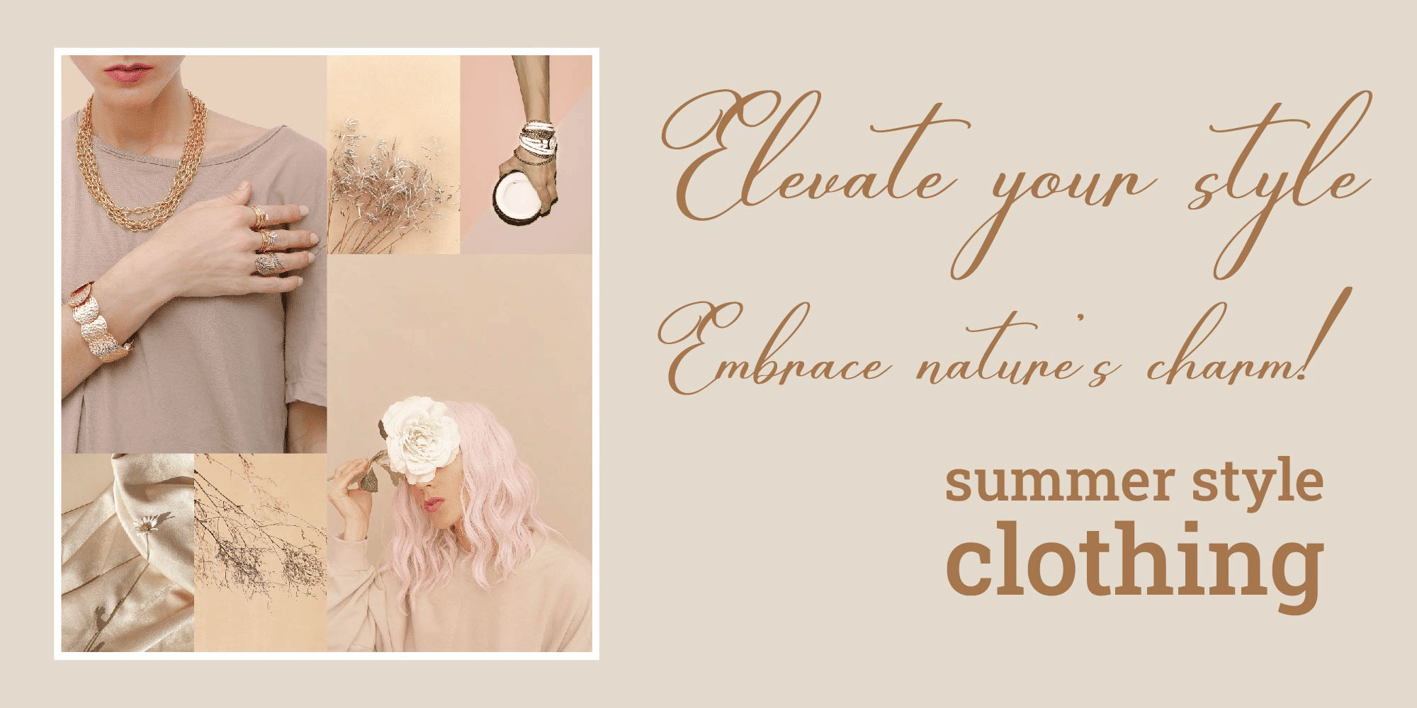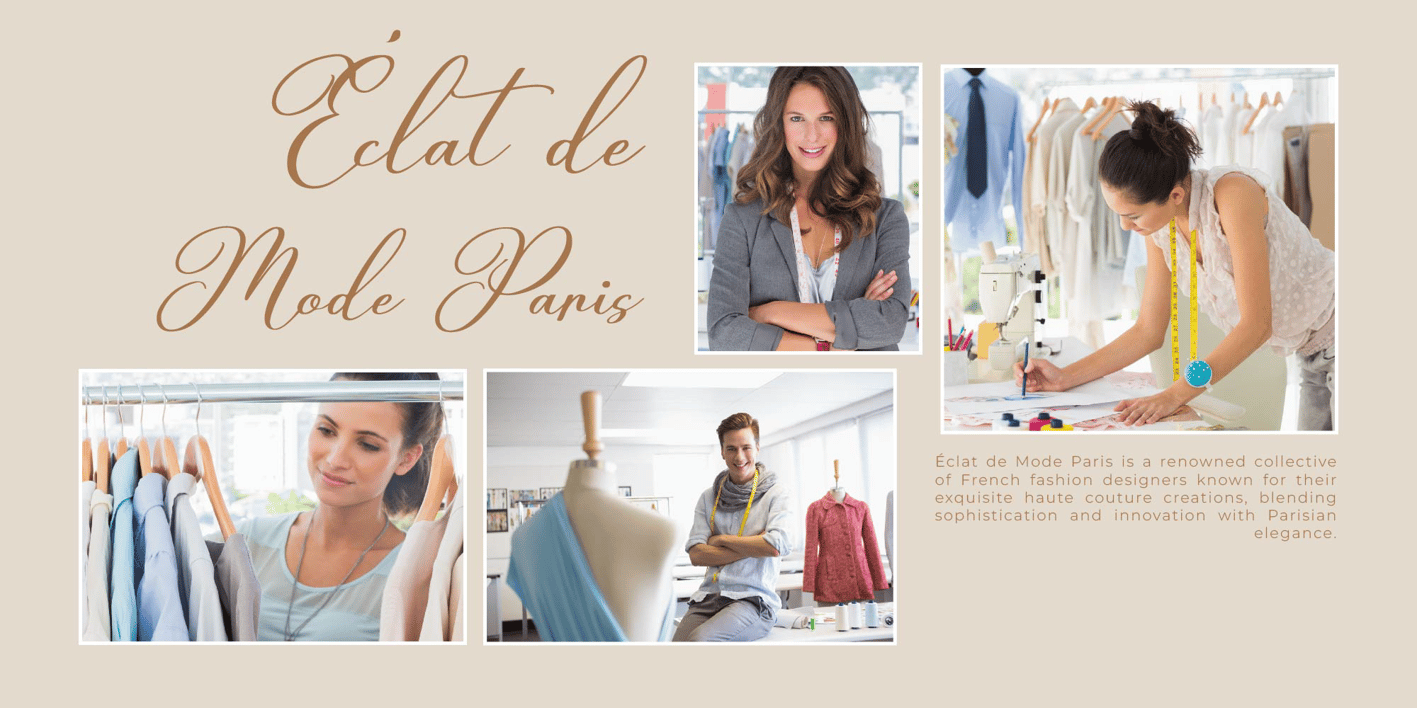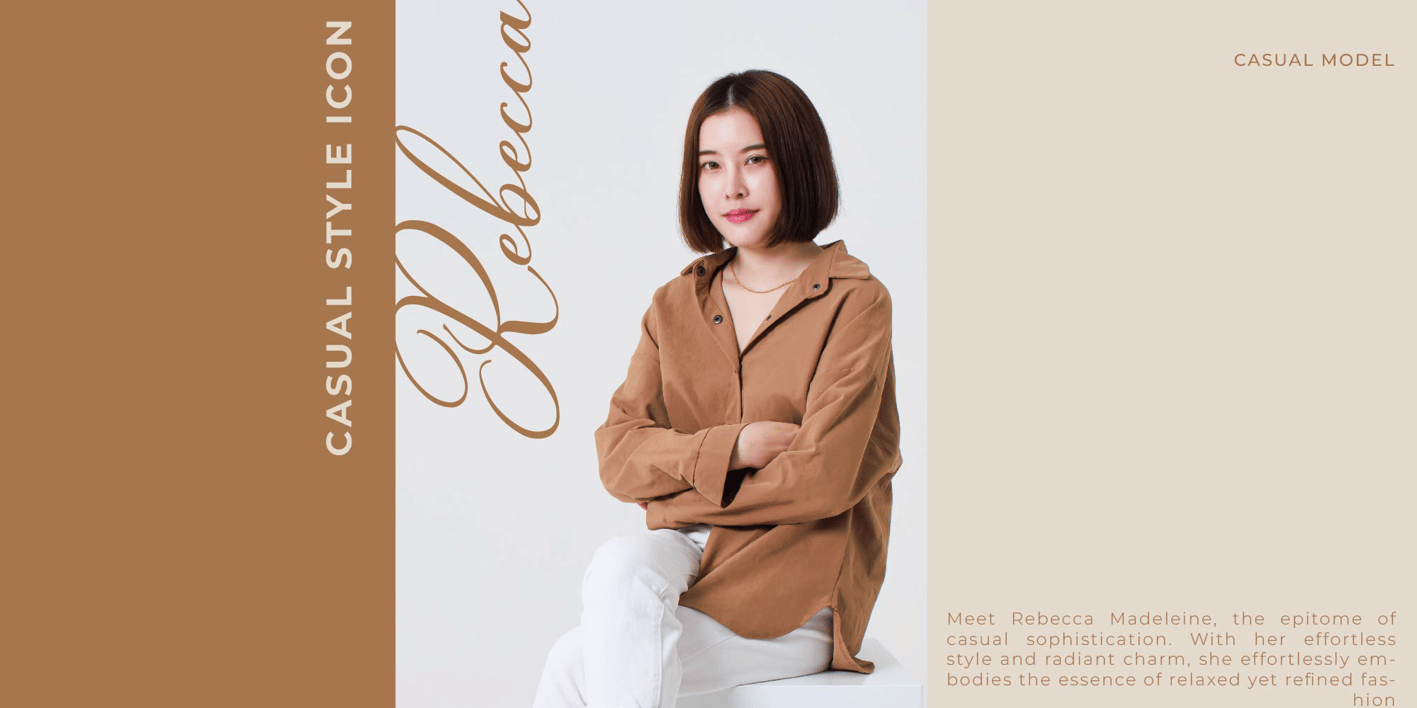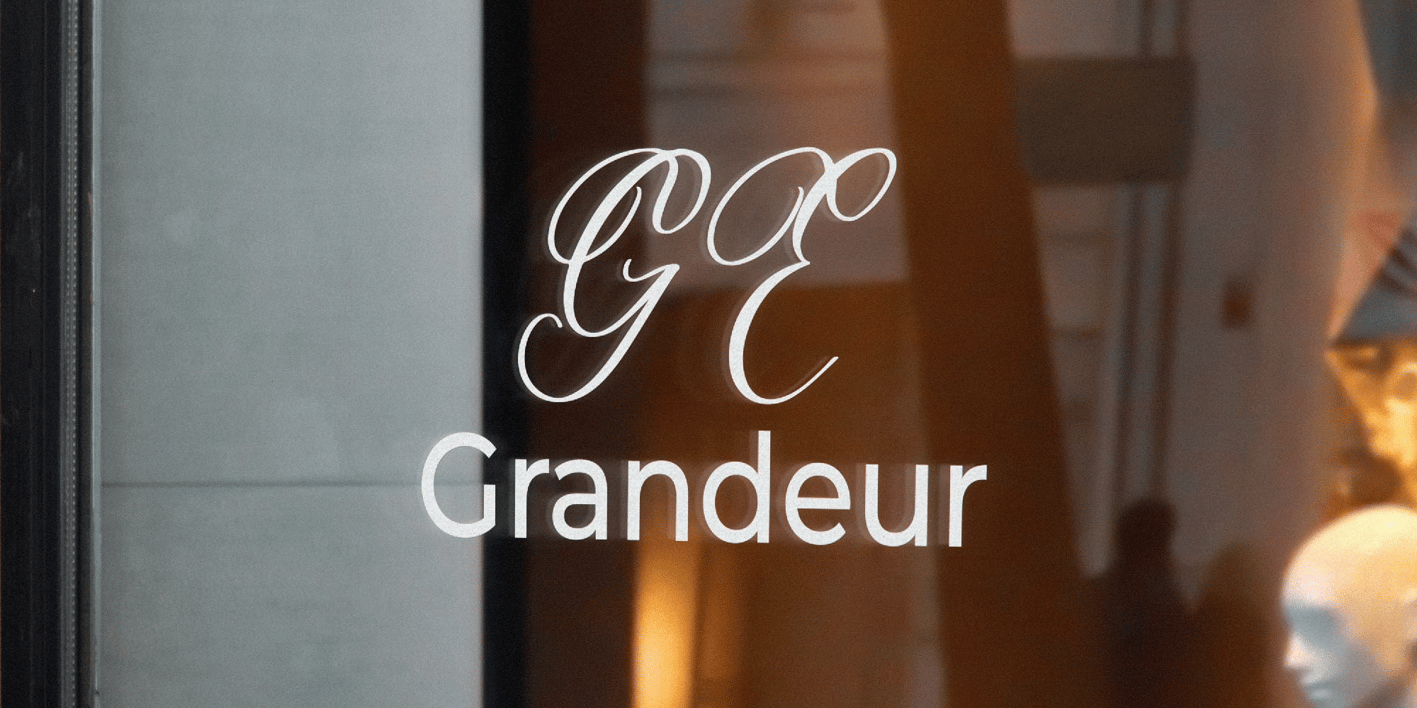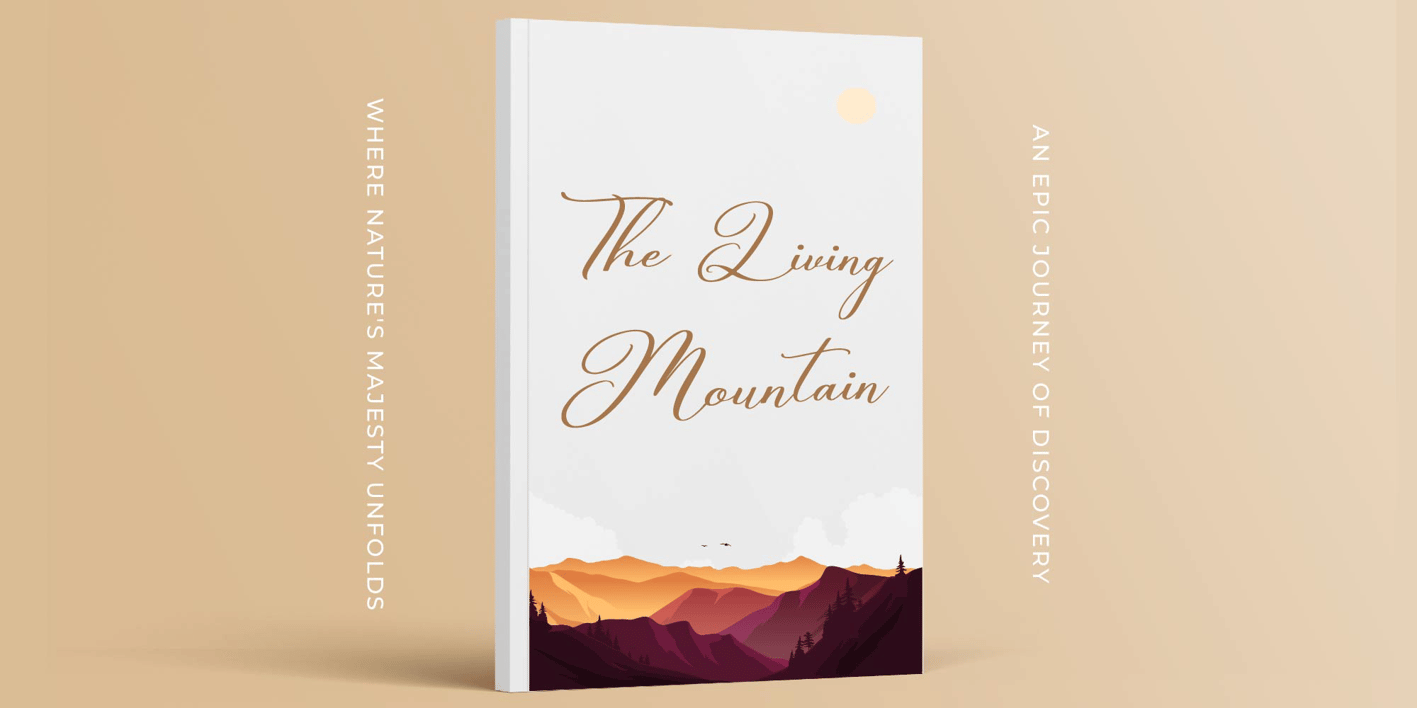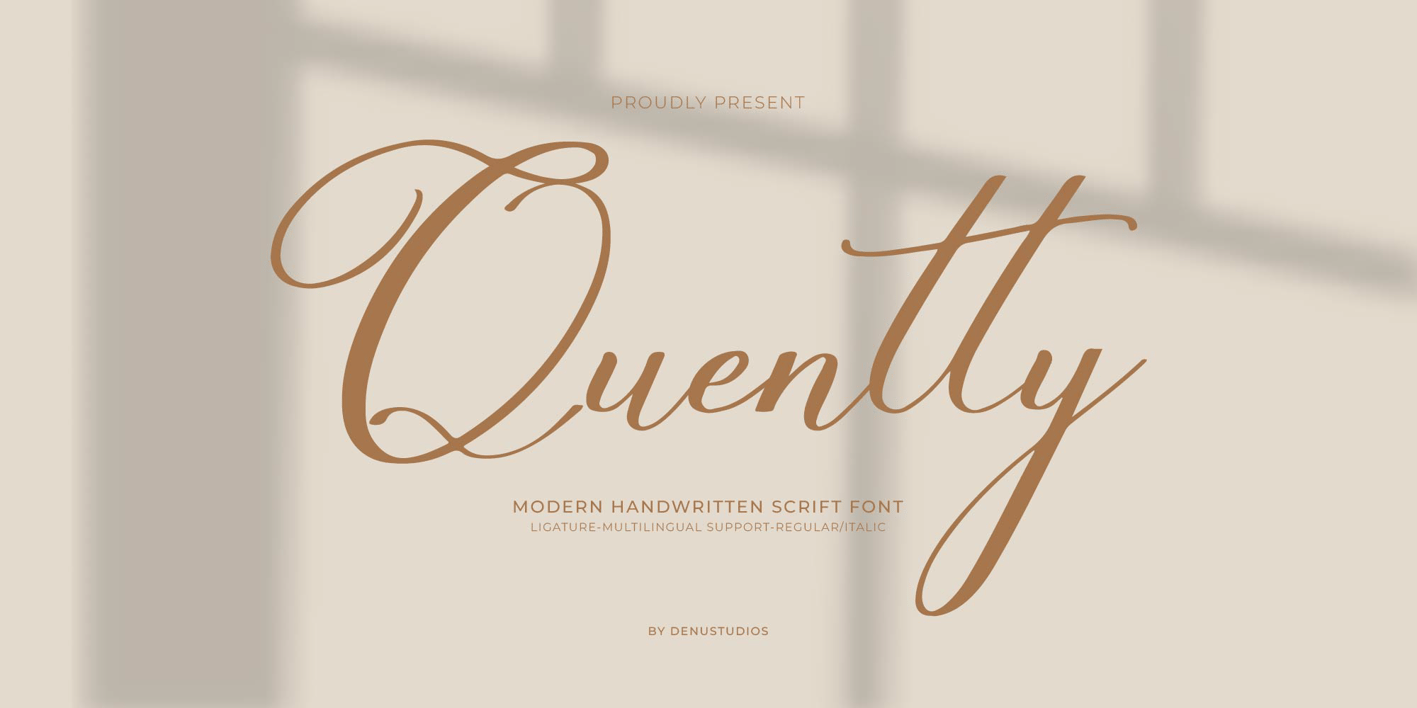
Quentty Font
Quentty Script, from Gracetypestudio, suitable for any projects such as: logos, branding projects, homeware designs, product packaging, mugs, quotes, posters, shopping bags, t-shirts, book covers, name card, invitation cards, greeting cards, label, photography, watermark, special events, and all your other lovely projects that need a beautiful script taste.